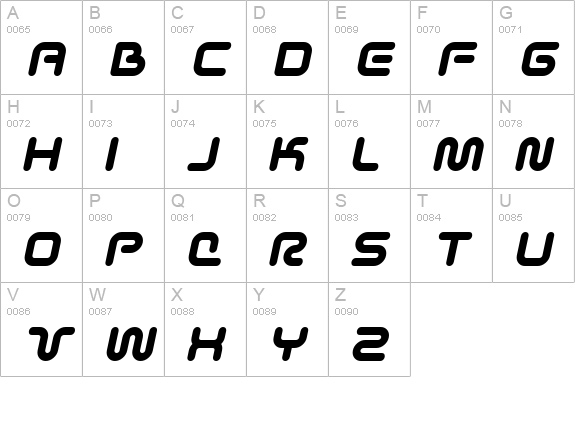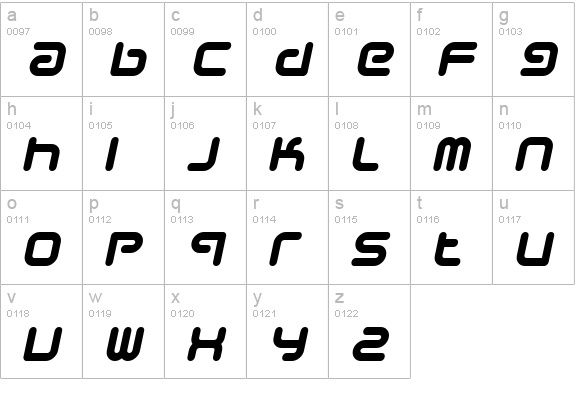
Introducing Sci Fied BoldItalic, a revolutionary font that seamlessly blends futuristic aesthetics with a bold and captivating style. This font is the perfect choice for those seeking to add a touch of sci-fi flair to their creative projects. With its striking and eye-catching design, Sci Fied BoldItalic is sure to make a statement wherever it is used. The unique combination of boldness and italics in Sci Fied BoldItalic creates a sense of dynamism and movement, making it ideal for conveying a sense of action and adventure. Whether it's for designing futuristic posters, crafting captivating book covers, or even creating attention-grabbing social media graphics, this font will undoubtedly elevate your designs to the next level. What sets Sci Fied BoldItalic apart is not only its stunning visual appeal, but also its accessibility. This font is freely available to download at FontsMarket.com, ensuring that anyone can access and utilize its powerful features. Gone are the days of restricted access to high-quality fonts - now, with Sci Fied BoldItalic, you have the freedom to create and express yourself without limitations. With its sleek and modern design, Sci Fied BoldItalic is versatile enough to be used in a wide variety of projects. From futuristic movie titles to sci-fi video game interfaces, this font will add a touch of sophistication and professionalism to any creative endeavor. So why wait? Embrace the future of design with Sci Fied BoldItalic! Download it for free at FontsMarket.com and unlock a world of endless possibilities. Let your imagination run wild and watch as your designs come to life with this captivating and futuristic font.